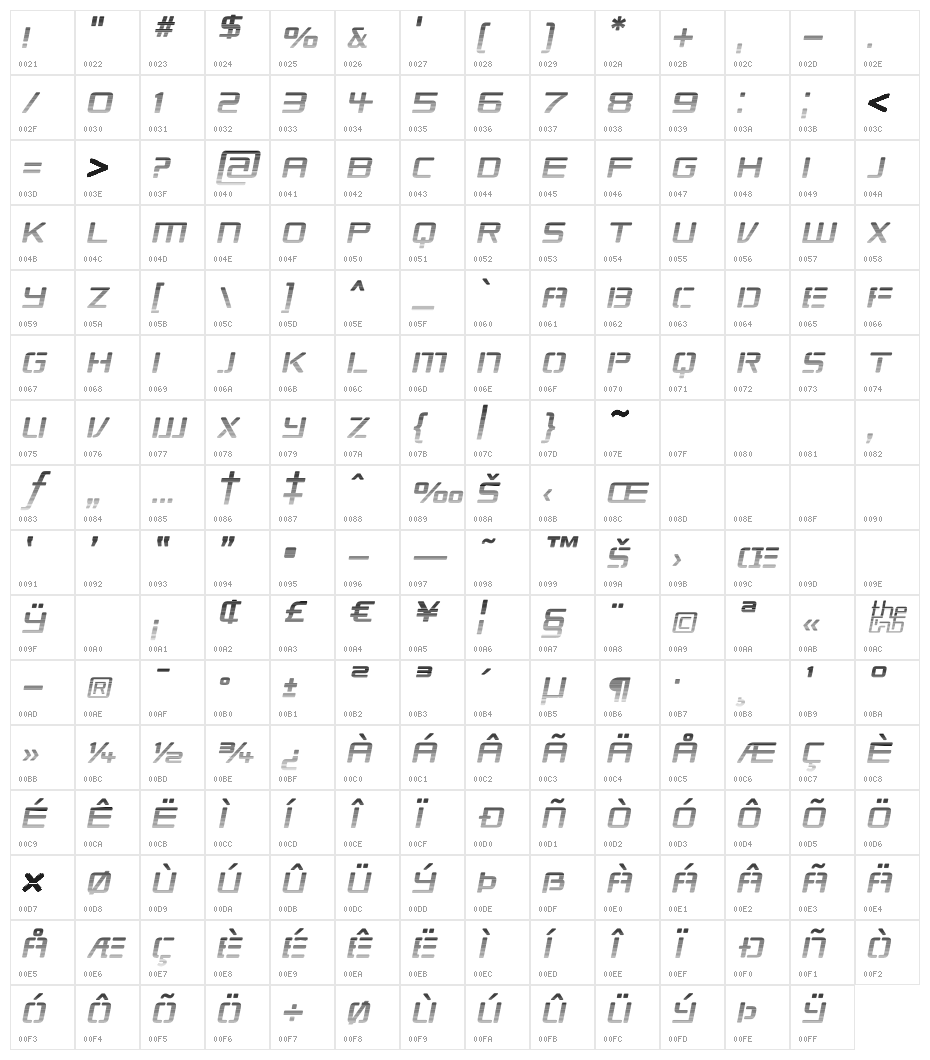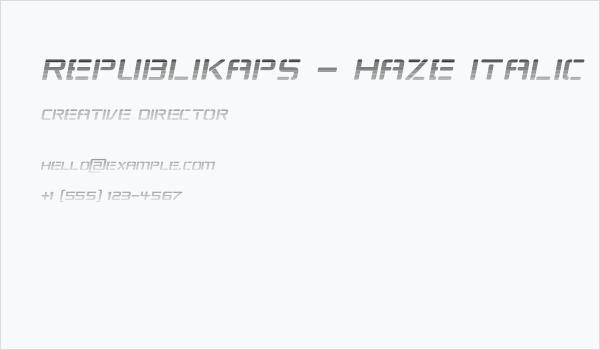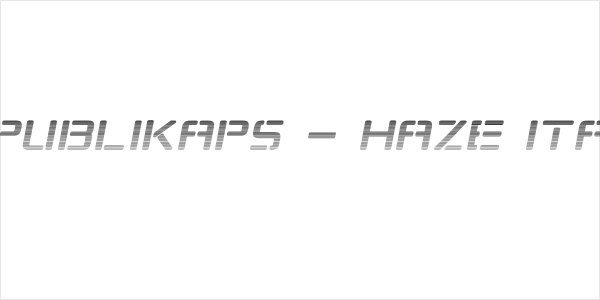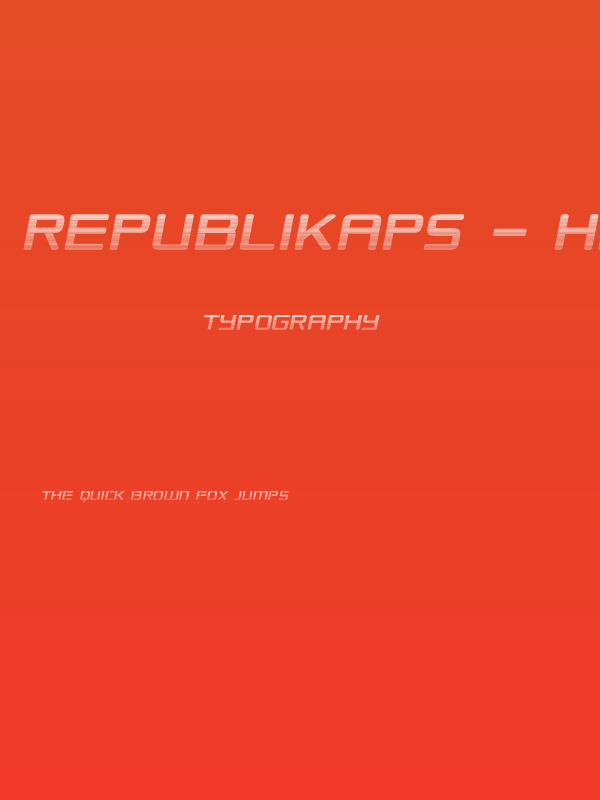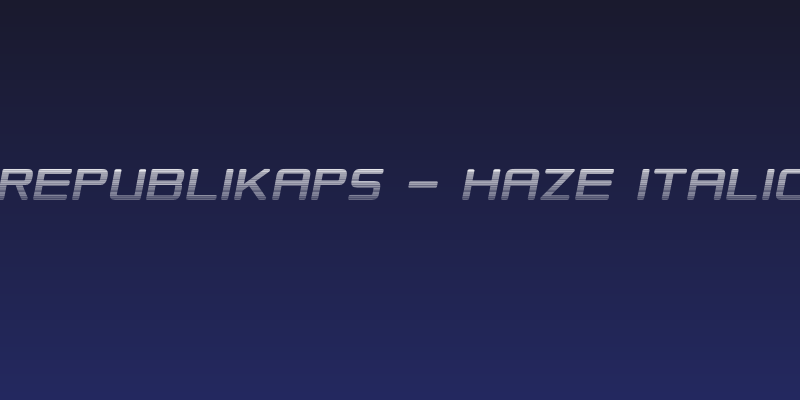
Republikaps - Haze Italic Font
This font features a modern, futuristic design with a distinct italic slant. The characters are constructed with a unique striped pattern, giving them a dynamic and energetic appearance. The uppercase and lowercase letters maintain a consistent style, with sharp edges and a geometric structure. Numbers and special characters follow the same design principles, ensuring uniformity across all glyphs. The font's bold presence and high contrast between strokes make it stand out, while the spacing between characters is relatively tight, enhancing its compact and sleek look.
| Proposed Projects | Ideal for tech-related branding, futuristic posters, video game titles, and sci-fi themed projects. |